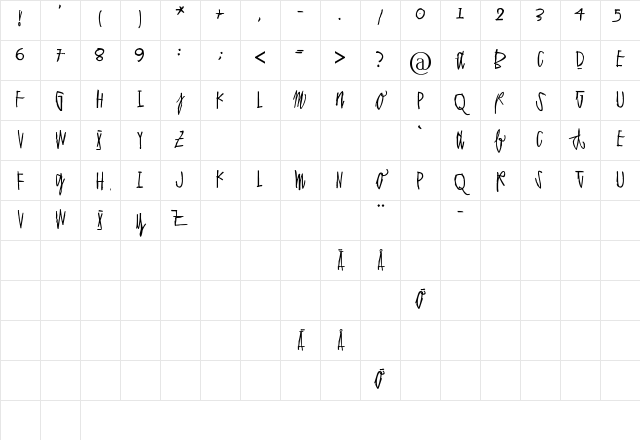
Polvi Humppila sanoo Regular
Design Context for Polvi Humppila sanoo
Polvi Humppila sanoo is a composed and adaptable typeface that performs quietly and consistently across a wide range of design contexts.